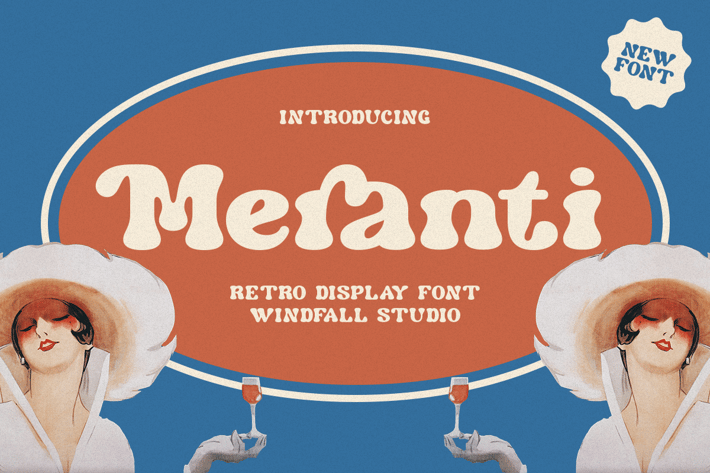
Meranti - Modern Bold Retro Typeface
Meranti is a contemporary yet bold retro typeface that seamlessly blends modern boldness with nostalgic retro vibes.
With its strong lines and retro-inspired details, this font exudes a powerful and charismatic presence in any design.
Perfect for branding, logos, posters, headlines, and more, Meranti injects a bold retro flair into your projects.
Embrace its dynamic energy and elevate your designs with Meranti.
Meranti Features:
Alternates & Ligatures
Numerals & Punctuation
Accented characters